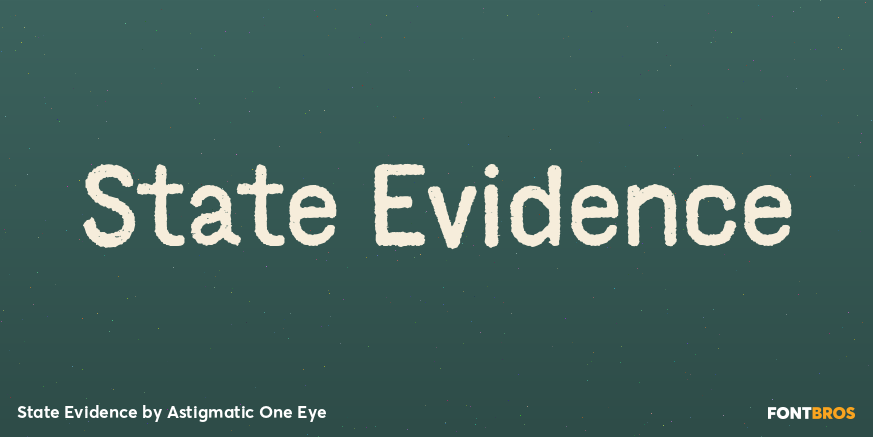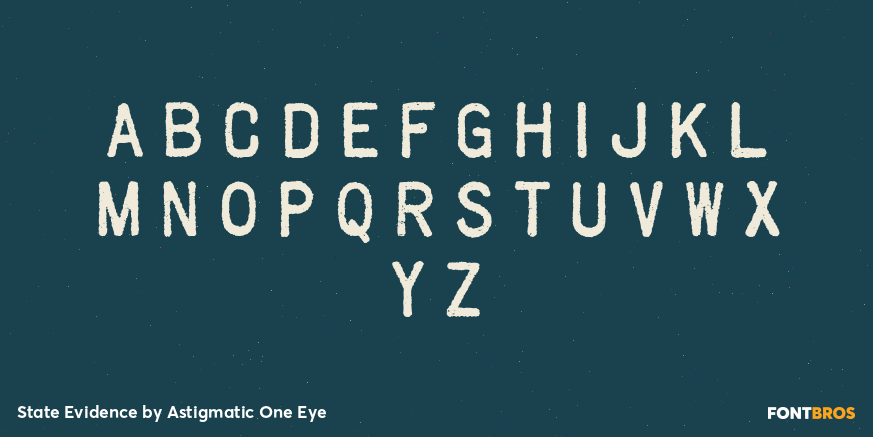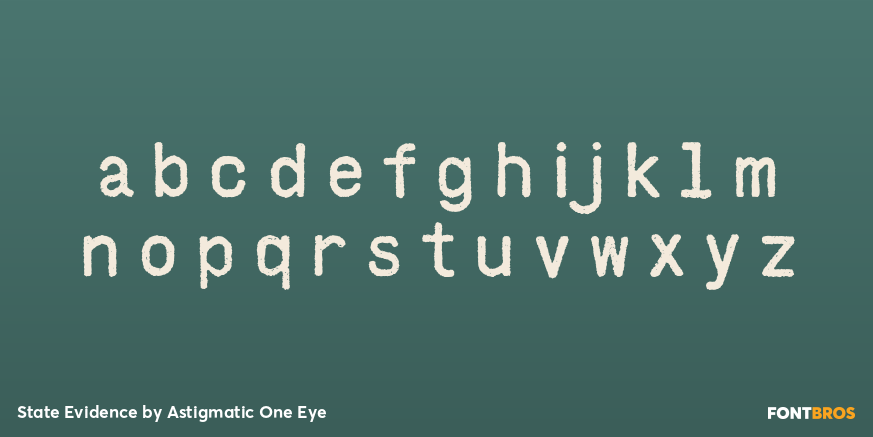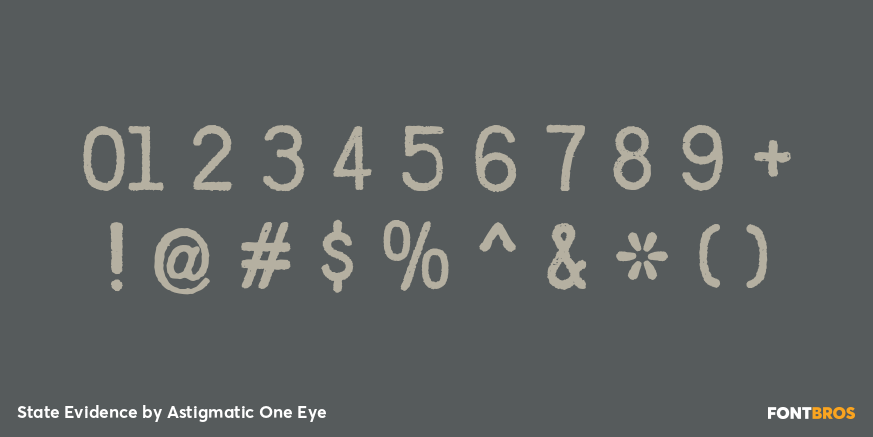
State Evidence
Font Family by Astigmatic One Eye
A typeface made from vintage typewriter samples and meticulously compiled into a complete character set.